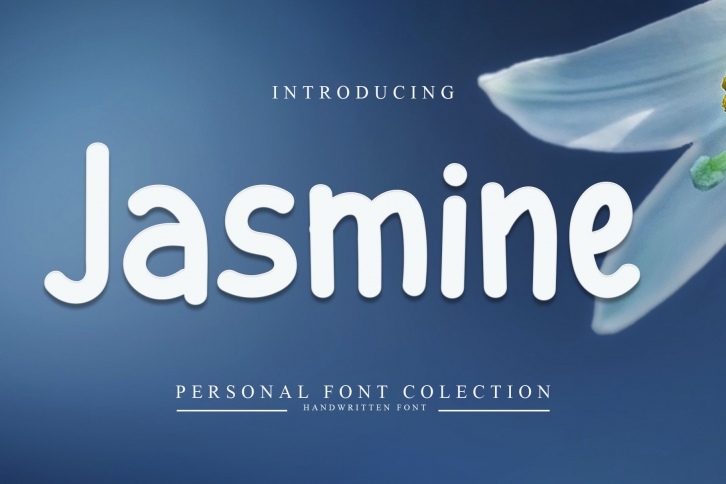
Jasmine is a great font that was designed by Giart Studios. Imagine the amount of combinations you can create using this font! The archive is 12.27 MB and it was released on June 8, 2021. Jasmine looks beautiful on wedding invitations, greeting cards, logos, posters, labels, t-shirt designs, logos, business cards and is perfect for use in ink or watercolor works, fashion, magazines, packaging and food menus, children's books and more!